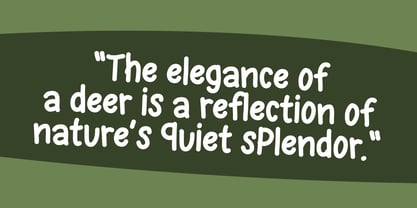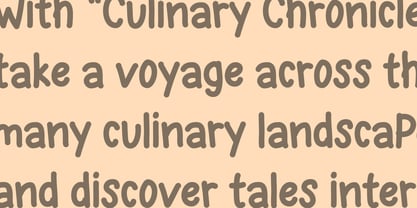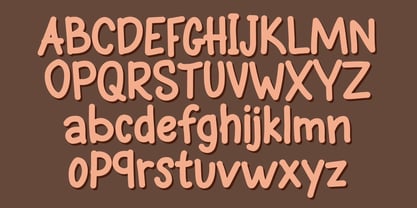
Canchil
Canchil : Monoline Handwriting that is Agile and Adorable
Canchil is a unique monoline handwriting typeface inspired by the cleverness, agility, and charm of the mouse-deer – the shy yet captivating creature from folklore. With its simple yet enchanting design, Canchil Font brings a modern touch with organic, flowing strokes that mimic the light, effortless movements of a mouse-deer in the wild.
The name "Canchil" can also be an acronym for Can Chill , representing a laid-back yet stylish lifestyle. This font is perfect for those looking to add warmth, friendliness, and a playful vibe to their creative projects, whether it’s for branding, illustrations, inspirational quotes, or social media designs.
Key Characteristics:
1. Monoline Style : Uniform line thickness gives a clean and minimalist appearance, making it ideal for contemporary designs.
2. Natural Flow : The letterforms have smooth transitions between characters, creating an authentic handwritten feel.
3. Playful Touches : Small details like slightly curved ends or short tails on certain characters give off a lively and fun impression, much like a mouse-deer hopping through the grass.
4. Versatile Use : Although inspired by the mouse-deer theme, this font is flexible enough for various uses – from children’s designs to professional casual-themed projects.
5. Multilingual Support : Equipped with multilingual support, making it more inclusive for users worldwide.
Mood & Personality:
Imagine a mouse-deer that is smart, agile, and able to navigate any terrain without leaving a heavy trace. That’s the essence of Canchil – a harmonious blend of softness, freedom, and confidence. This font is not just a visual communication tool but also a reflection of the “can chill ” attitude – relaxed yet productive.
Ideal Usage:
• Branding for lifestyle, fashion, or food/beverage products.
• Posters, greeting cards, or invitations with a casual theme.
• Motivational quotes or Instagram captions that aim for a personal touch.
• Educational projects or children’s books with nature-inspired elements.
With Canchil, you’ll experience the joy of creating with a sense of freedom and calmness, just like watching a mouse-deer gracefully step under the sunlight. Let your ideas flow effortlessly with Canchil!